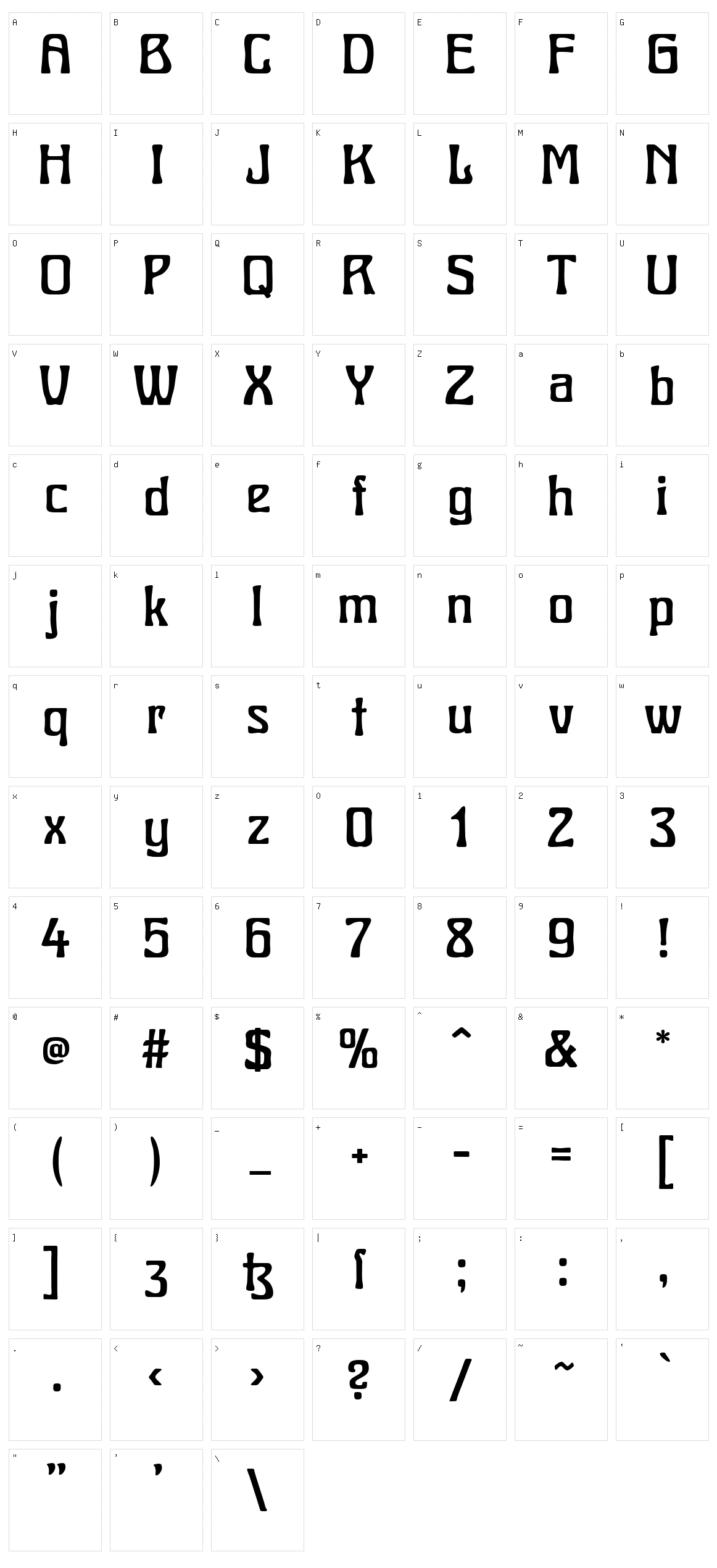
âRadium FGâ is a new digitisation of the Art Nouveau hot-metal font âRadiumâ published in 1905 by the German typefoundry Ludwig & Mayer.
It became popular in the 1970s when Hubertus Carl âHaceâ Frey reworked the bold weight of Radius under the new name âCharlestonâ. It was used chiefly as a display typeface on musical album covers.
Radium FG has, like the original âRadiumâ, both a regular and a bold weight. I added latin character sets for most Western and Eastern European languages. It is available as a free font under the SIL Open Font License with the reserved name âRadiumâ. For details see https://scripts.sil.org/OFL.
There is also a bold extended version under the name of âLutherkirche FGâ.
âRadium FGâ ist eine Neudigitalisierung der Jugendstil-Bleisatz-Schriftart âRadiumâ, veröffentlicht 1905 von der SchriftgieÃerei Ludwig & Mayer.
Sie erlangte neue Popularität in den 1970ern, nachdem Hubertus âHaceâ Frei den fetten Schnitt unter dem neuen Namen âCharlestonâ neu herausgab. Er fand vor allem Verwendung als Displayschrift auf Plattencovern und Buchtiteln.
Radium FG hat, wie die Bleisatz-Vorlage, einen mageren und einen fetten Schnitt. Ich habe Sonderzeichen für die meisten in lateinischen Buchstaben geschriebenen west- und osteuropäischen Sprachen ergänzt. Der Font steht unter der freien Lizenz SIL Open Font License (resiervierter Name: Radium). Näheres auf https://scripts.sil.org/OFL.
Es gibt daneben noch eine breit laufende Version des fetten Schnitts unter dem Namen âLutherkirche FGâ.